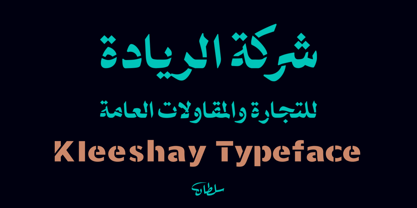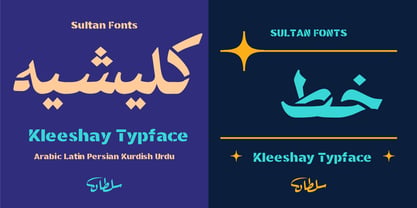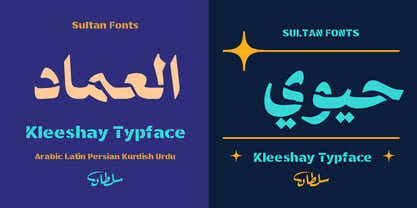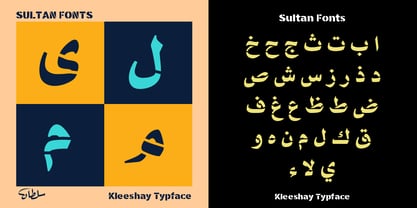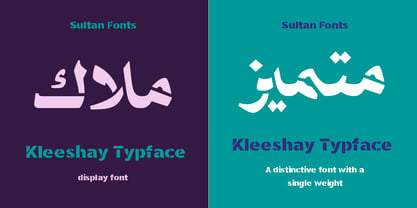
SF Kleeshay
A família de fontes SF Kleeshay foi desenhada por Sultan Maqtari e publicada pela Sultan Fonts. SF Kleeshay contém 1 estilos. Saiba mais sobre esta família
Kleeshay is a bold Arabic typeface that blends classical Naskh elegance with a modern visual impact. Designed by Sultan Maqtari in 2025, Kleeshay is part of the Sultan Fonts collection and is tailored for powerful headlines, distinguished logos, and refined editorial layouts.
Its thick strokes, clear contours, and balanced proportions give it a strong presence while preserving the beauty of traditional Arabic script. Kleeshay supports Arabic, Persian, Kurdish, Urdu, and Latin characters, making it a multilingual asset for contemporary branding and print.
Whether you're designing a magazine cover, a brand identity, or high-impact posters, Kleeshay delivers a professional, formal, and classic tone with bold confidence.
• Weight: Bold
• Style: Naskh
• Languages: Arabic, English, Persian, Kurdish, Urdu
• Ideal for: Headlines, logos, print materials, and advertising
Designers: Sultan Maqtari